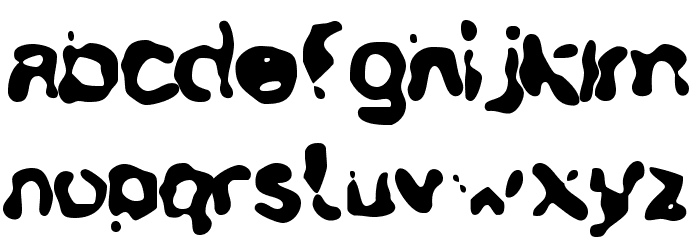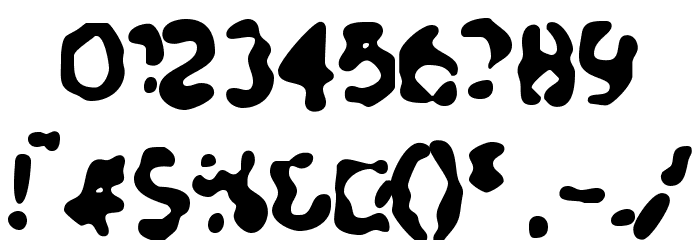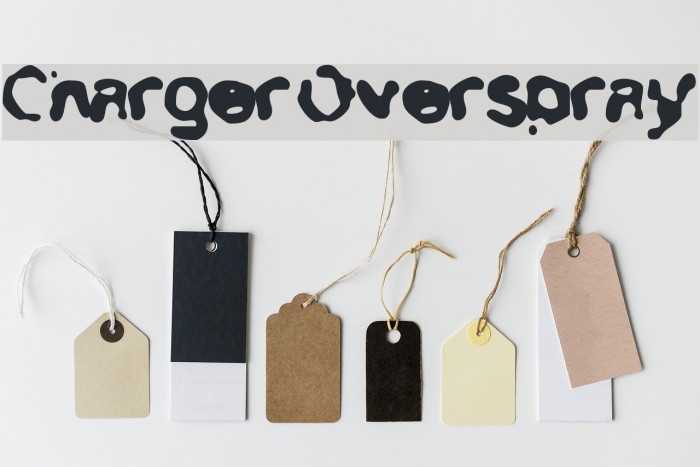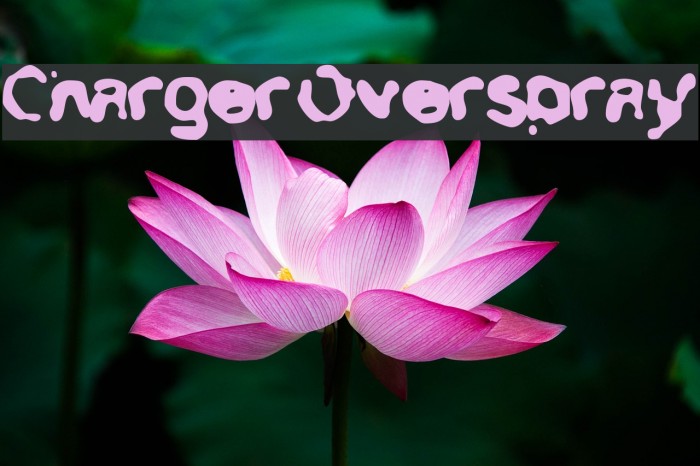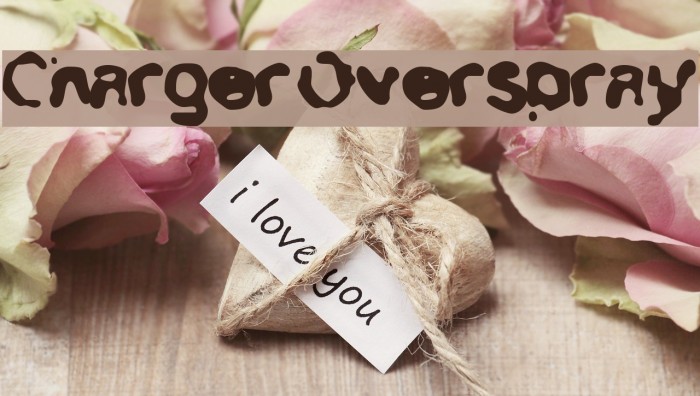
Charger Overspray Font
This font features a bold and playful design with an irregular, organic appearance reminiscent of paint splatters or ink blots. The characters are heavily stylized, with uneven edges and varying thickness, creating a dynamic and energetic feel. The uppercase and lowercase letters maintain a consistent style, while the numbers and special characters follow the same artistic theme. This font's unique aesthetic makes it stand out, offering a sense of creativity and spontaneity.
A bold, playful font with an organic, splattered appearance.
- Proposed Projects: Ideal for artistic projects, graffiti-inspired designs, posters, and creative branding.